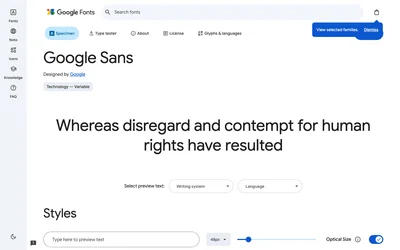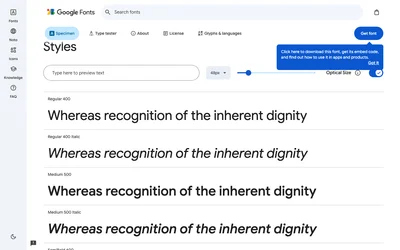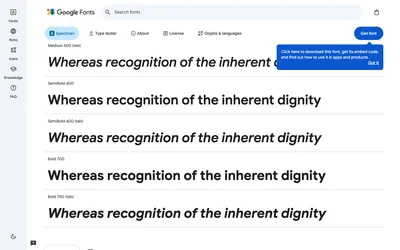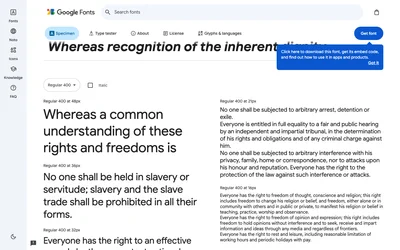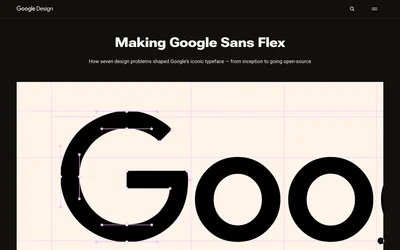
Google Sans vs Sora
Google Sans and Sora are both sans-serif typefaces sharing a geometric foundation. Where Google Sans leans tech, Sora brings minimal. Compare which suits your Branding project.
| Feature | Google Sans | Sora |
| Variable Font | Yes | Yes |
| Weights | Variable | Variable |
| Language Support | latin, latin-extended, cyrillic, greek | latin, latin-extended |
| Source | Jonathan Barnbrook |
Recommended: Google Sans
- tech design character
- Suited for Web and Corporate
- From Google
Consider: Sora
- minimal design character
- Suited for Tech and Apps
- From Jonathan Barnbrook